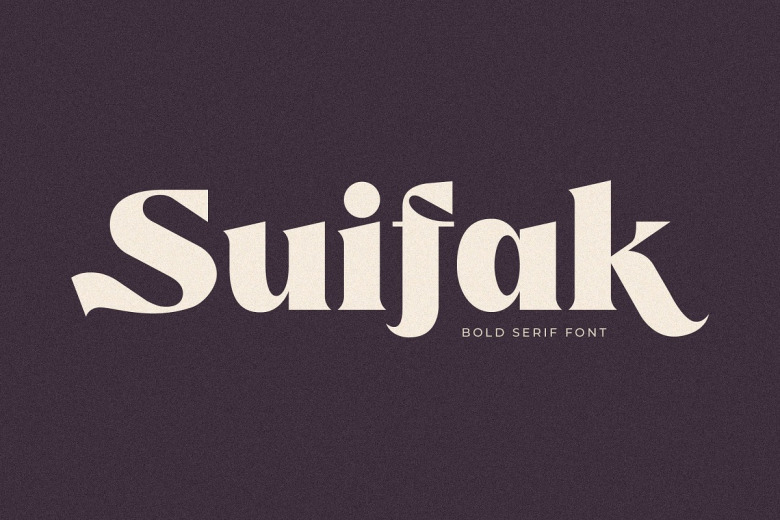
Suifak Font
Suifak is a modern and classic bold serif font style. This typeface is perfect for your elegant and luxurious logo, book or movie title design, fashion brand, magazine, clothes, lettering, quotes and much more.
Suifak Bold Serif Font